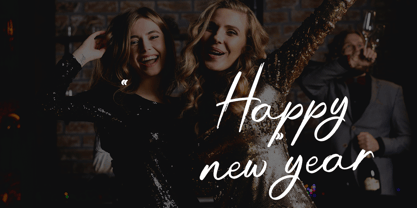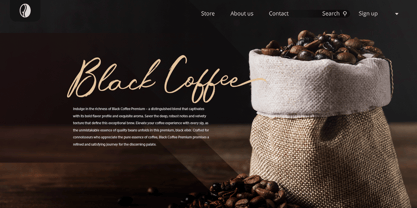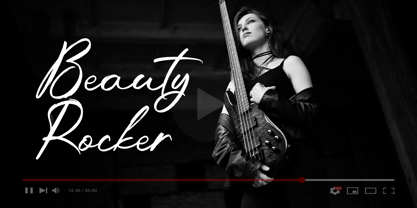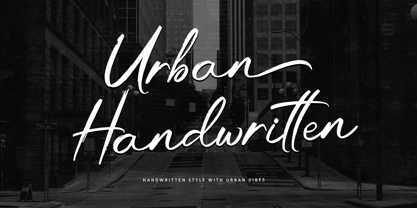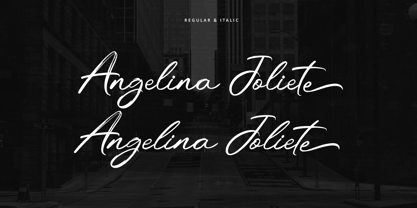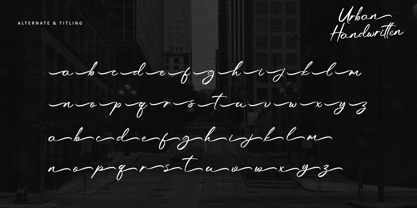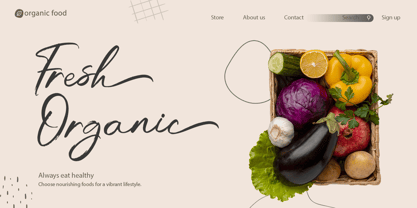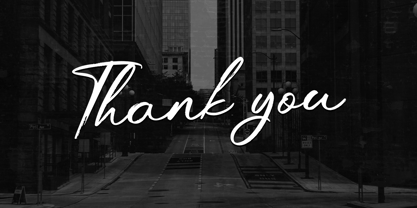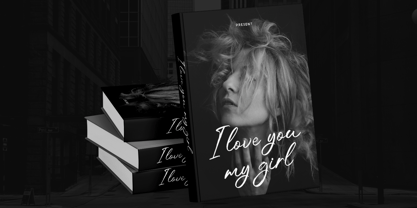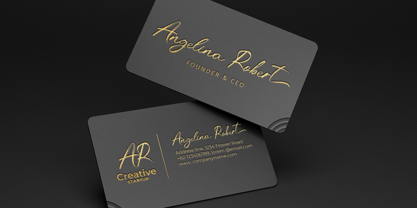
Urban Handwritten
by Letterara
The Urban Handwritten Font Family was designed by Thomas Aradea and published by Letterara. Urban Handwritten contains 2 styles and family package options. More about this family
Introducing Urban Handwritten, a natural brush script font that captures raw energy and authentic charm. With its bold strokes and organic brush texture, this font is designed to bring a dynamic, hand-crafted touch to your creative projects. Perfect for logos, posters, packaging, and branding, Urban Handwritten delivers a striking balance of strength and fluidity. Its natural flow makes every word stand out with personality, while PUA encoding ensures easy access to all expressive glyphs and alternates. Elevate your designs with Urban Handwritten, a font that effortlessly blends modern style with a raw, artistic edge.
Designers: Thomas Aradea
Foundry: Letterara